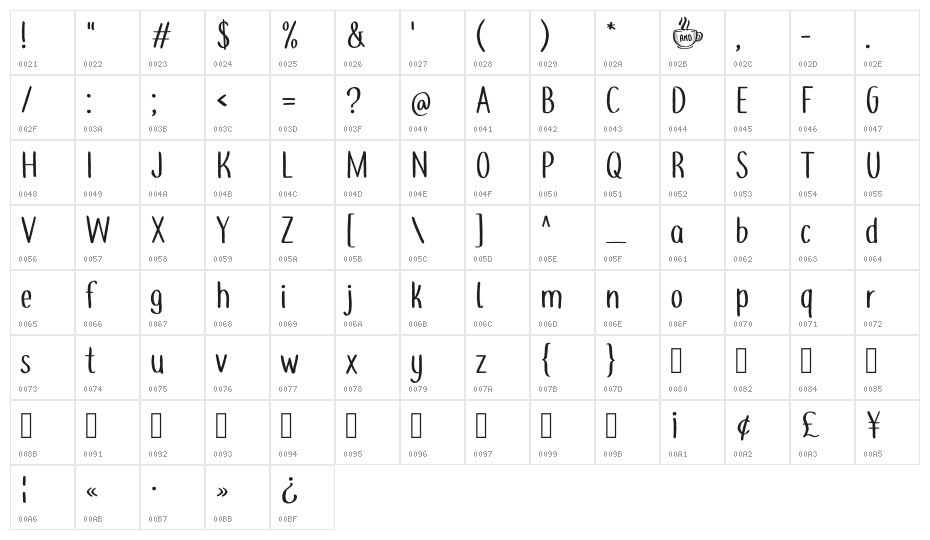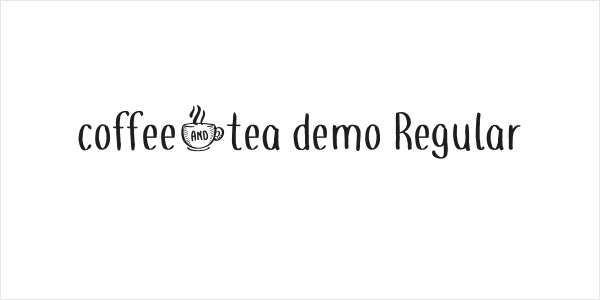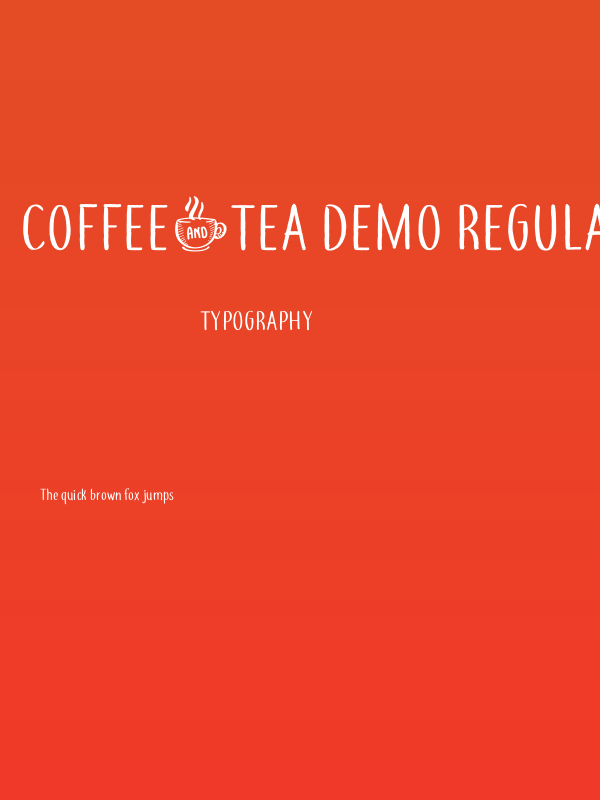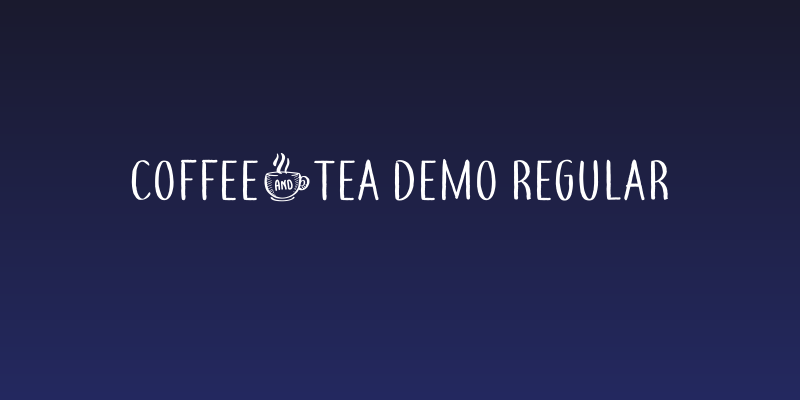
coffee+tea demo Regular Font
coffee+tea demo Regular Description
This font features a playful and casual handwritten style, characterized by its slightly irregular strokes and organic flow. The letters have a natural, hand-drawn appearance, giving them a warm and inviting feel. The uppercase letters are tall and narrow, while the lowercase letters maintain a consistent height, creating a harmonious balance. The numerals and special characters follow the same informal aesthetic, making the font versatile for various creative applications. Its unique charm makes it suitable for projects that require a personal touch.
| Use Case | Logos, Invitations, Posters |
| Proposed Projects | Ideal for greeting cards, invitations, personal branding, and creative posters. |